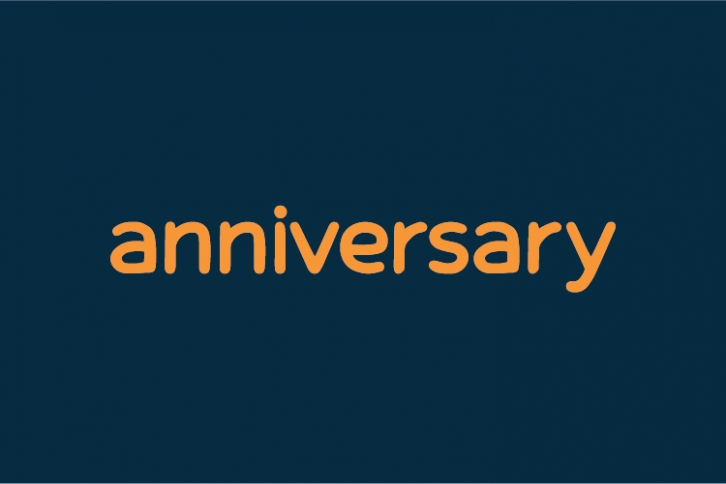
Anniversary is a natural sans serif font made without changing a single node in each character’s indentation- this makes this font very interesting and unique. Perfect for quotes, notes, tees, and any product design.